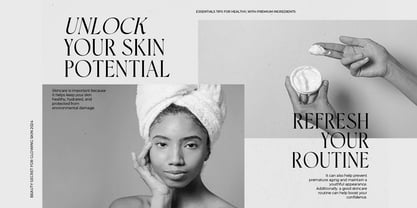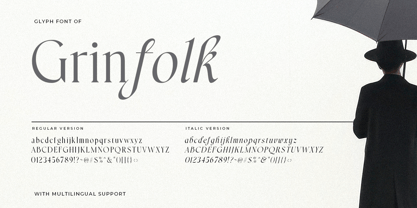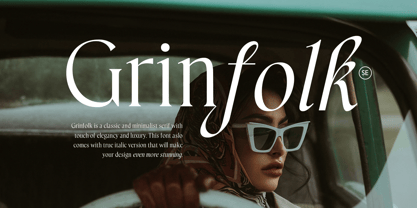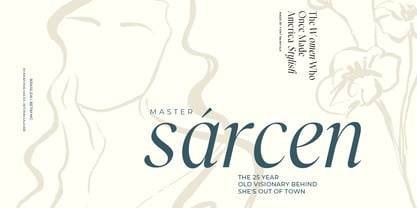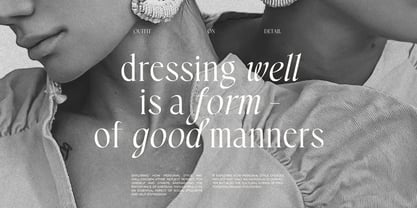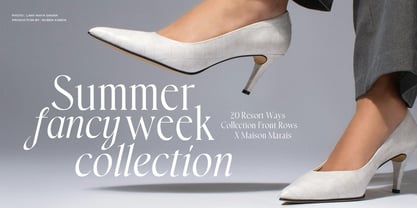
Grinfolk
by Sarid Ezra
The Grinfolk Font Family was designed by Sarid Ezra and published by Sarid Ezra. Grinfolk contains 2 styles and family package options. More about this family
Grinfolk is a classic and minimalist serif with touch of elegancy and luxury. This font aslo comes with true italic version that will make your design even more stunning. With true italic version, you can use this font family for any purposes such as wedding invitations, logo, and branding. And if you are searching for timeless display serif, this font is what you need. Rainfolk also support multi language!
Designers: Sarid Ezra
Foundry: Sarid Ezra